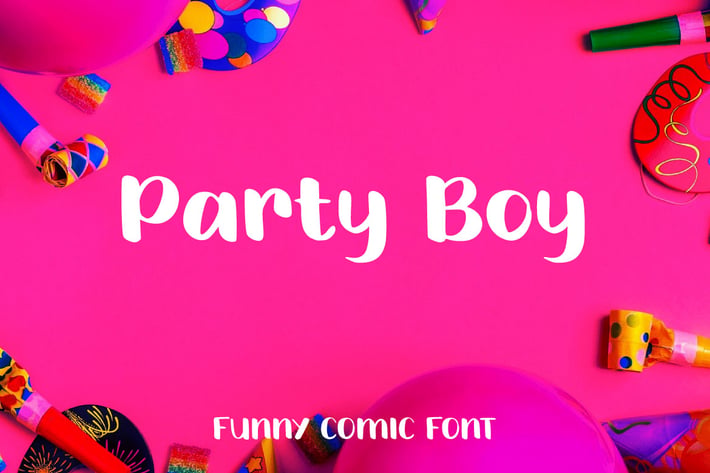
Party Boy - Funny Comic Font
Introducing our latest addition to our funny comic font - Party Boy. Bursting with personality and oozing with charm, this font is the perfect choice for any project that needs a playful and dynamic touch.
Crafted with care and attention to detail, the Party Boy features thick, expressive strokes that give each letter a bold and commanding presence. Whether you're creating a poster for a comic book convention or designing a playful logo for a children's brand, this font is sure to make a statement and capture the imagination.